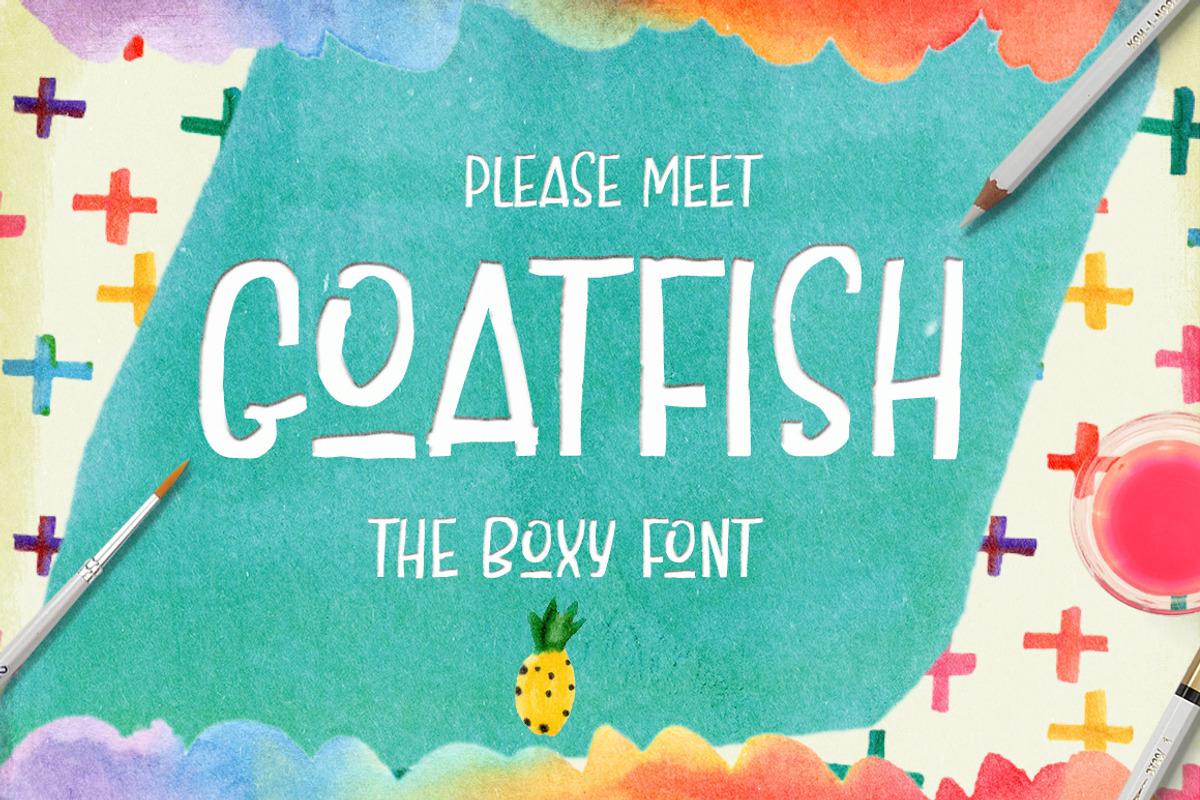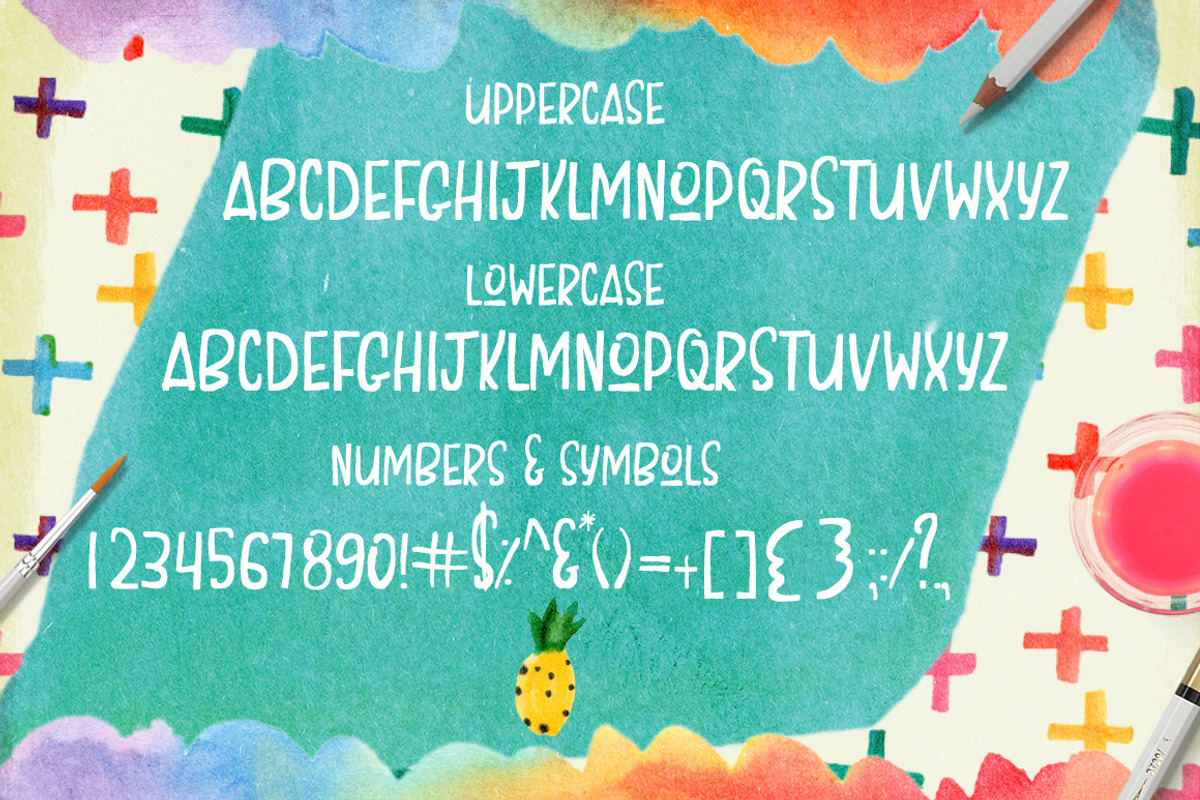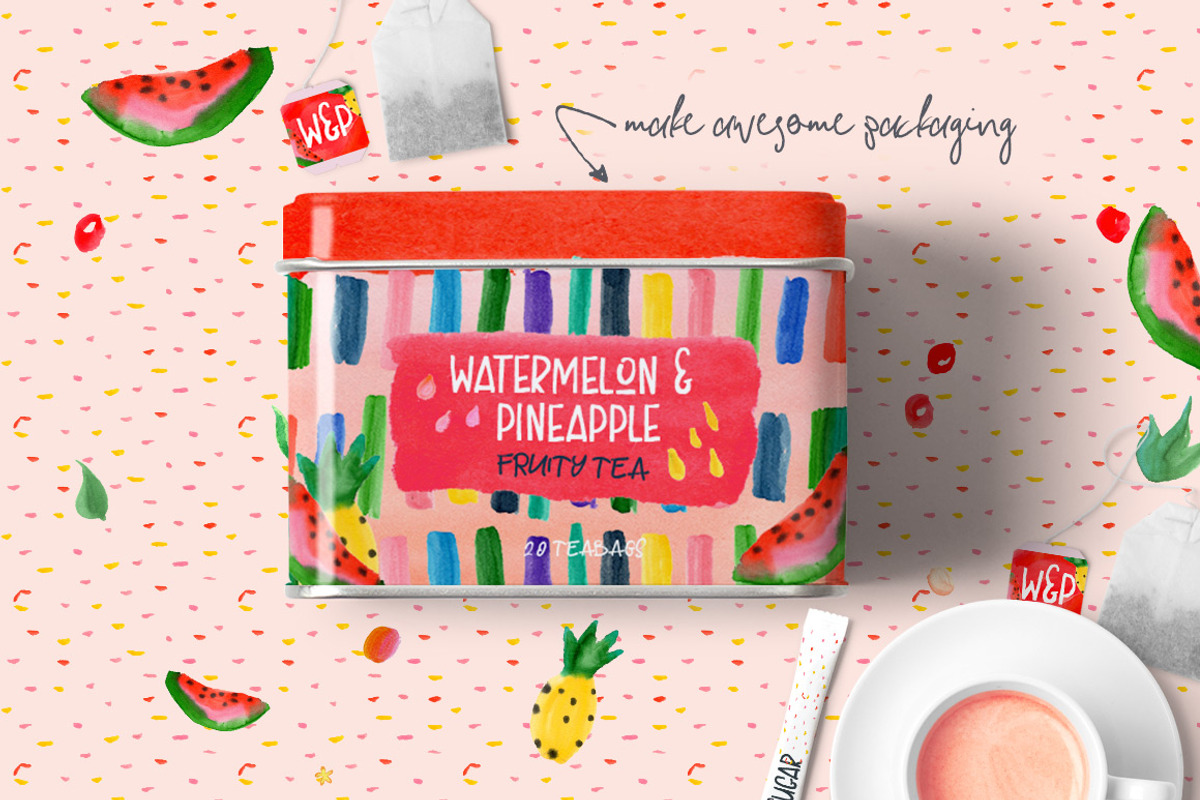
Goatfish Display Font
Goatfish Display Font by Creativeqube Design is a font selected for branding, posters, packaging, typography.
- A trendy hand drawn uppercase font, perfect to use with all my script fonts.
Why Goatfish Display Font is worth a look
Goatfish Display Font by Creativeqube Design fits naturally into Branding, posters, packaging, typography.